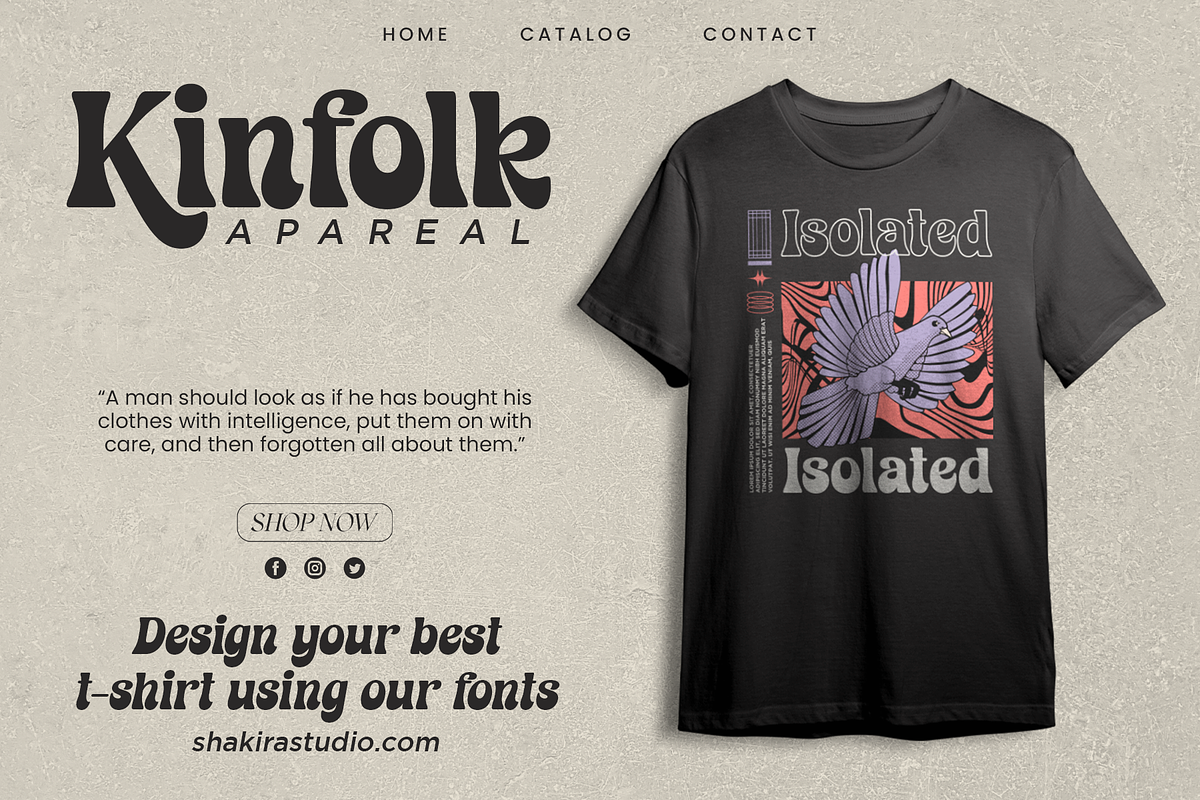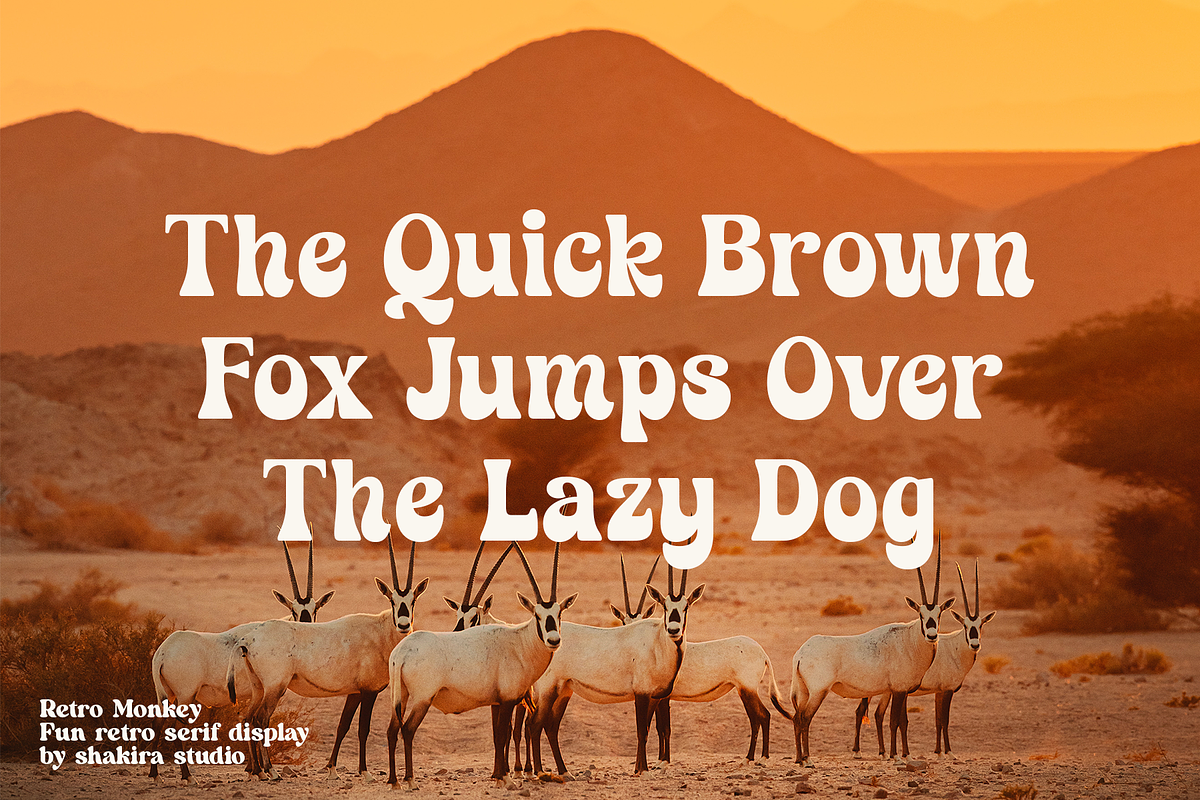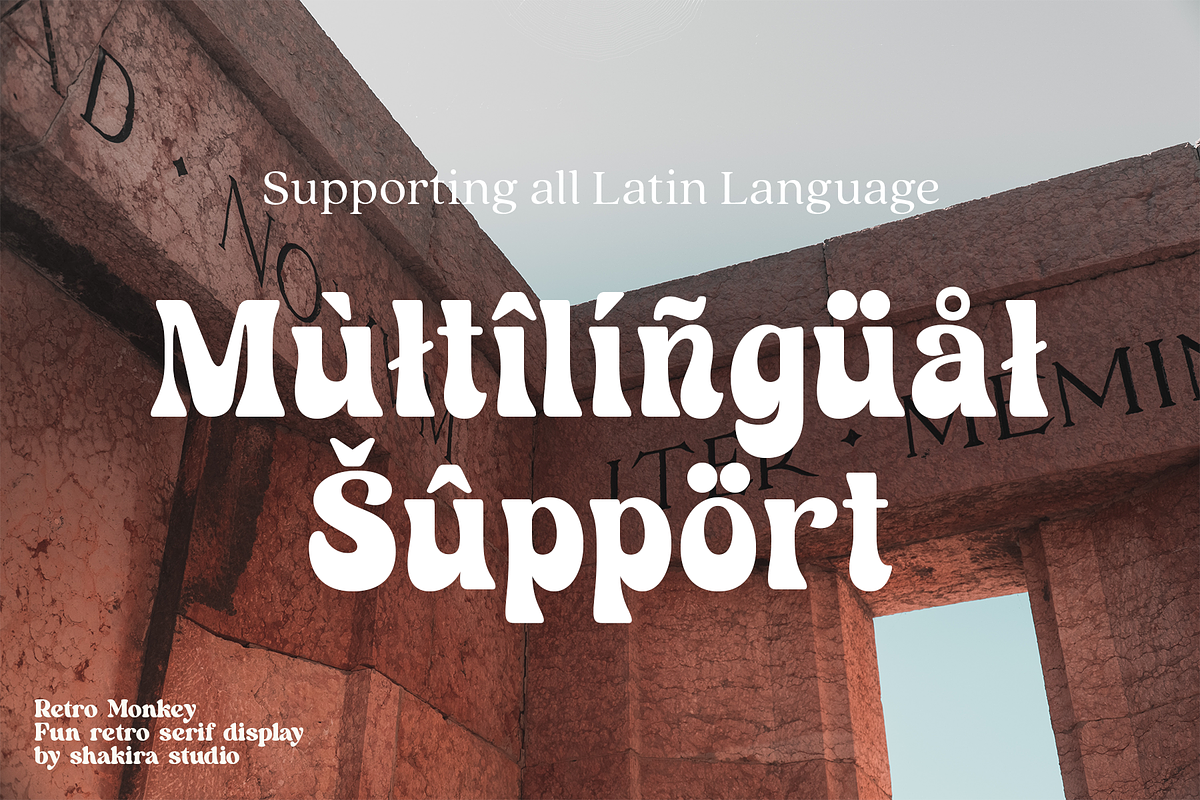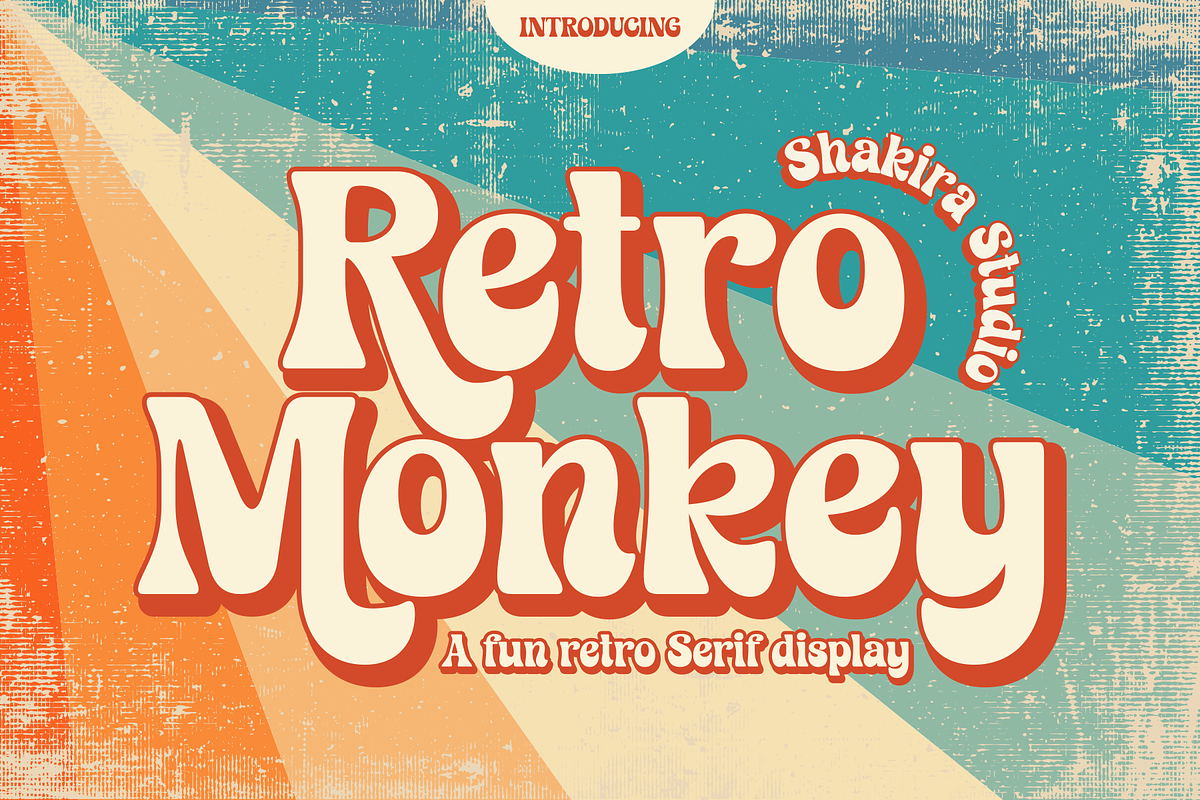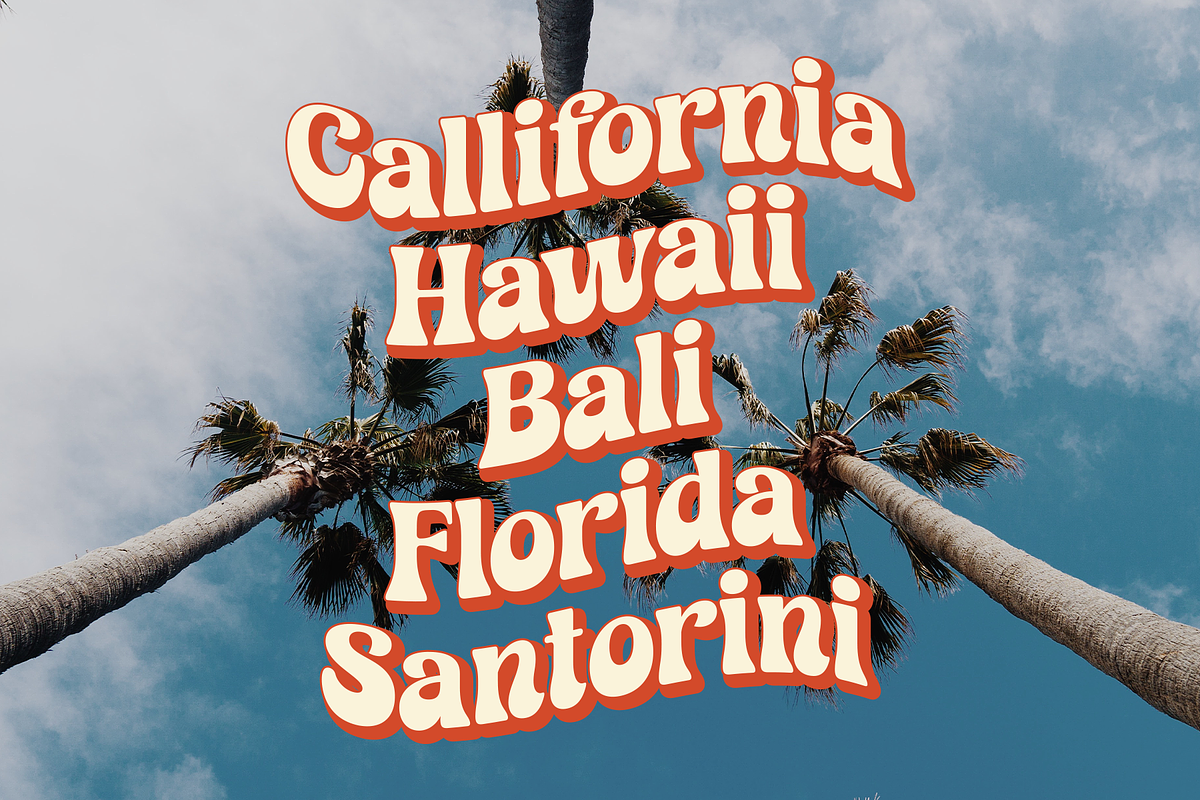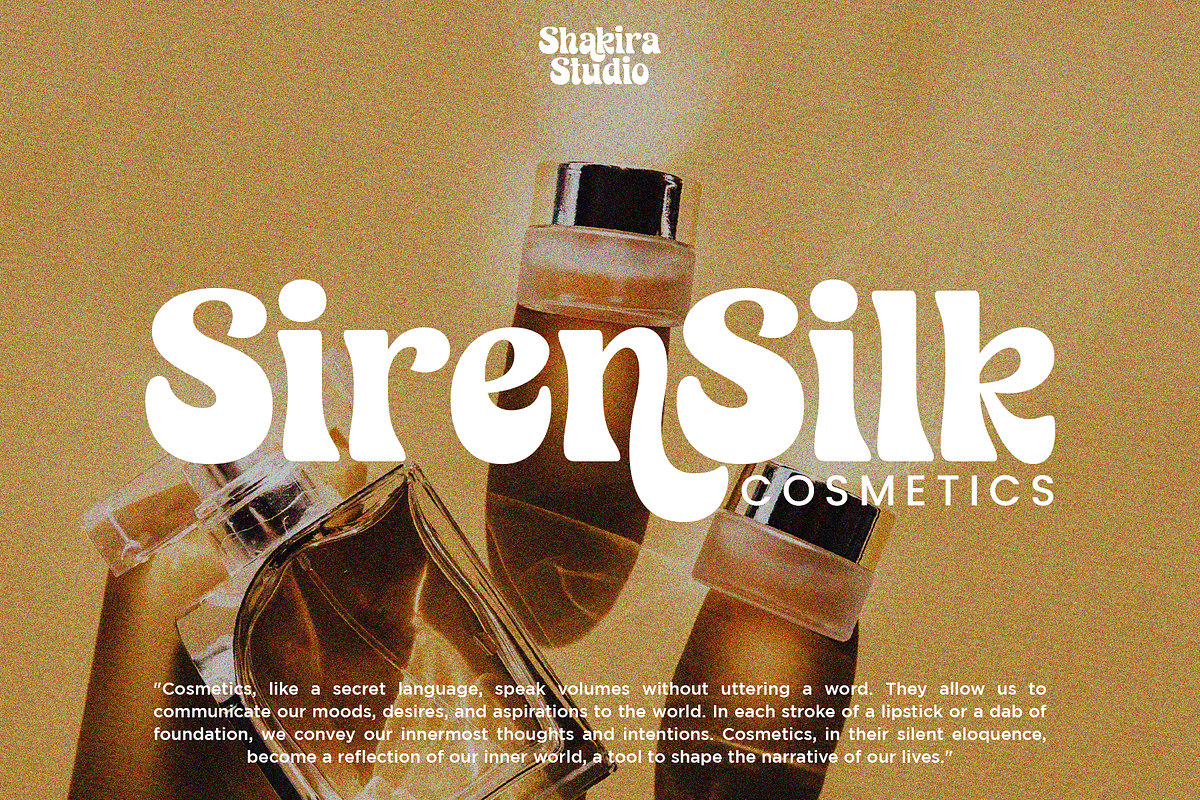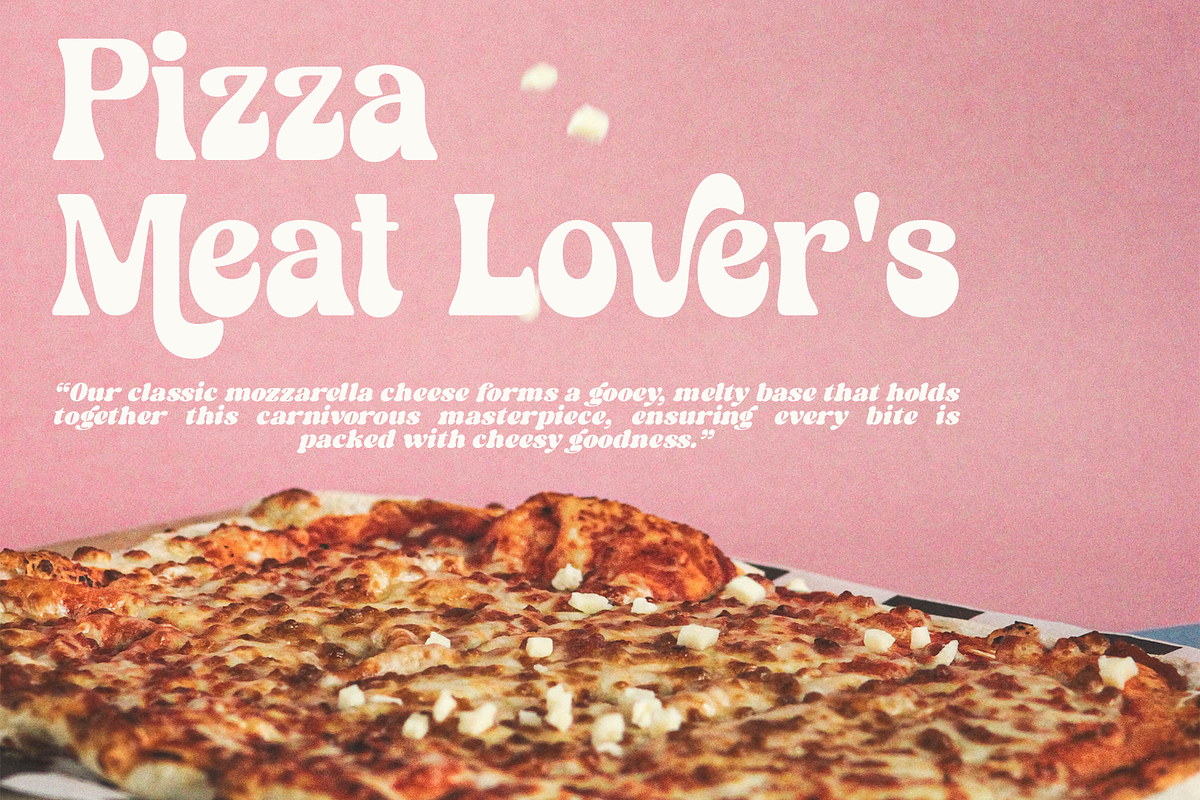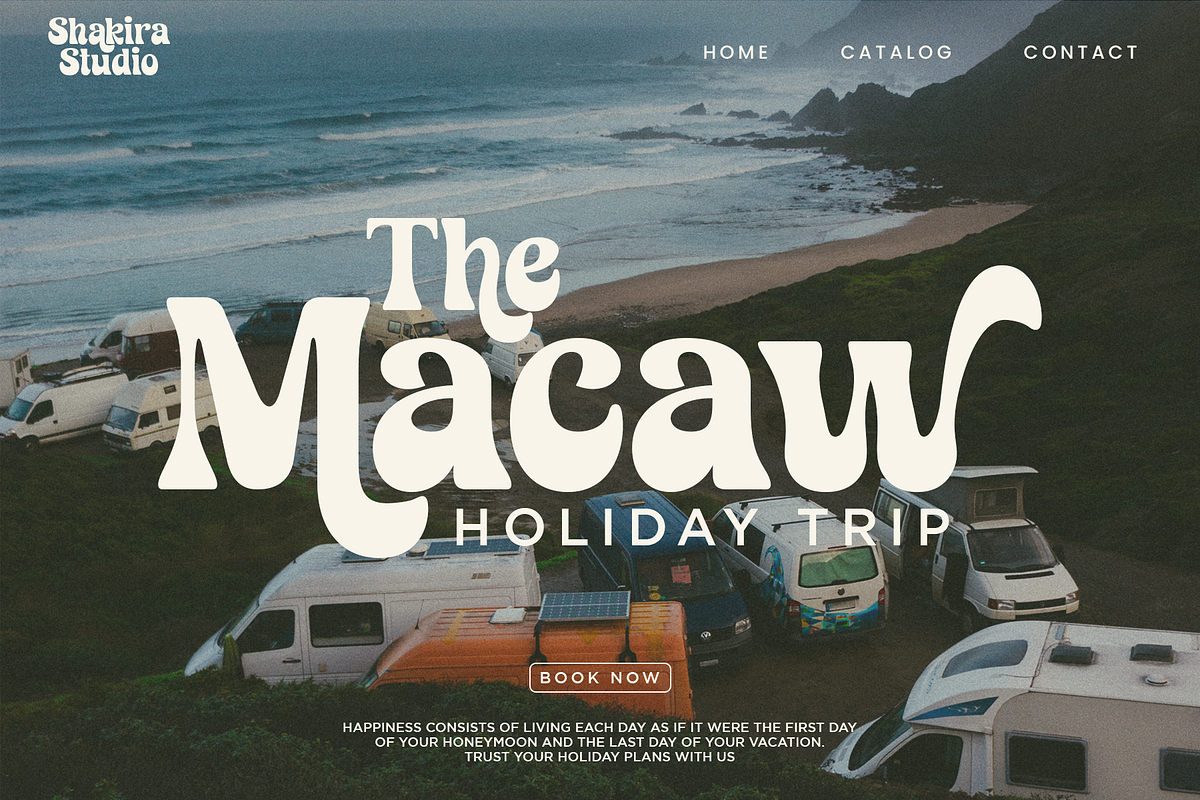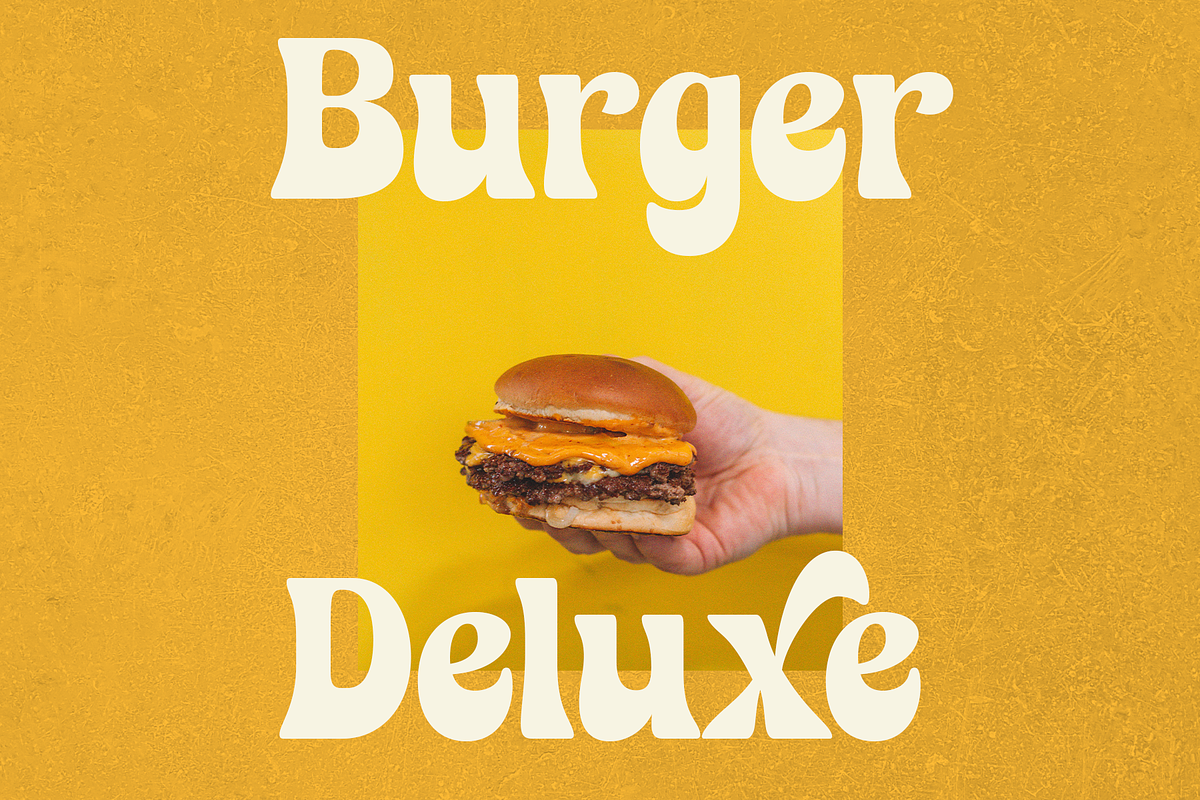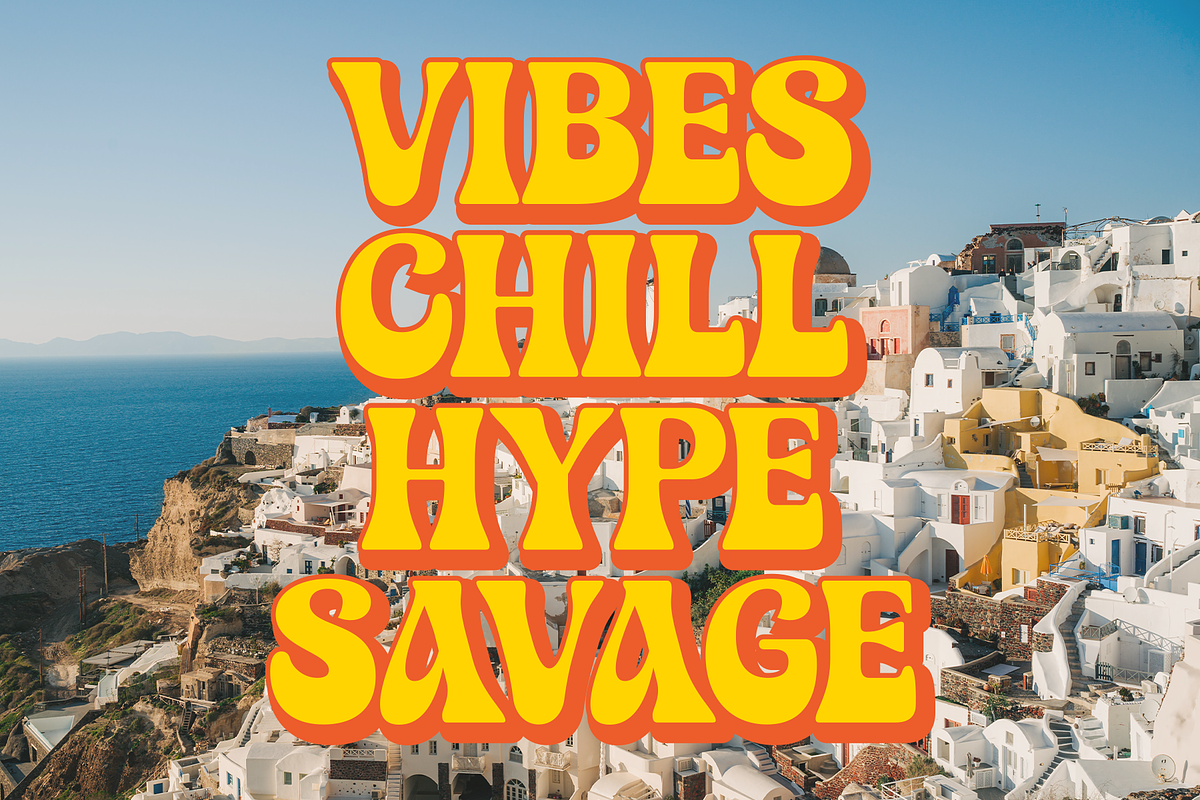
Retro Monkey - Modern Retro Serif
Say hello to new serif font, Retro Monkey!
Retro Monkey is a display serif font that delivers a classic retro feel with strength and boldness. Characterized by striking bold letters, Retro Monkey exudes elegance and uniqueness in every detail. Its retro-inspired design evokes nostalgia and conveys a strong and charming style.
Retro Monkey's lettering proportions are audacious in their clarity and legibility. With bold lines and strong contours, each letter looks tough while retaining the elegance of a retro aesthetic. Consistent letter thickness provides an appealing visual appeal and is easily recognizable.
Retro Monkey is suitable for use in various design projects that want a strong retro classic impression. This font makes a perfect choice for headlines, titles, posters, merchandise designs, and more. In any context, Retro Monkey carries an impressive presence, inviting the audience to feel nostalgia for a different era.